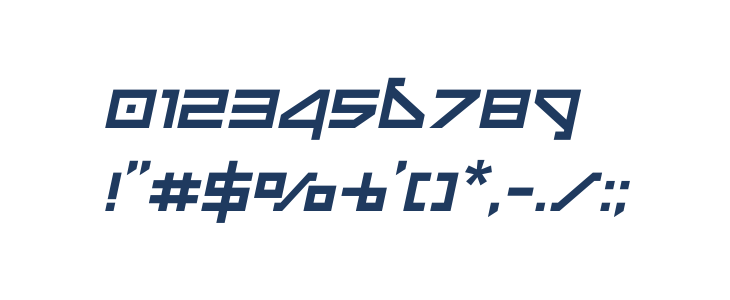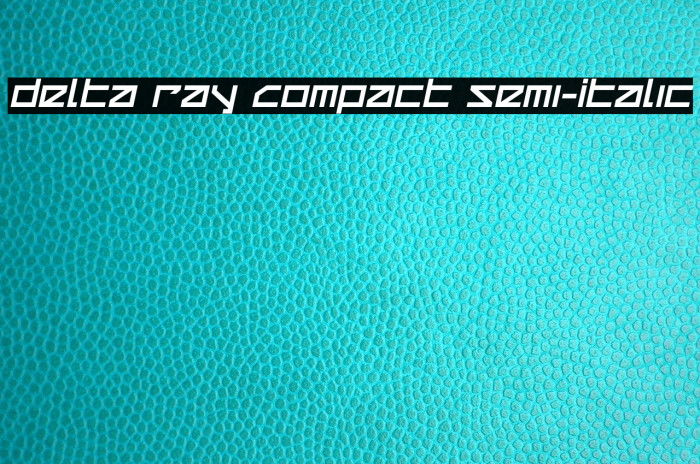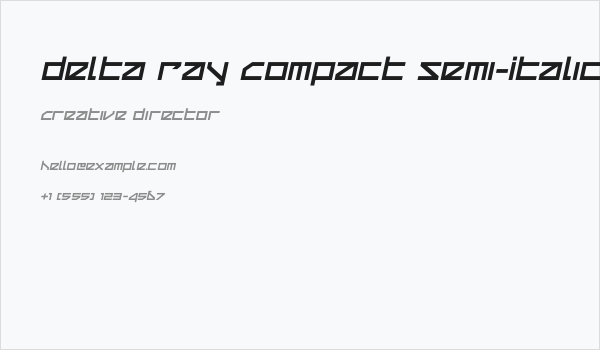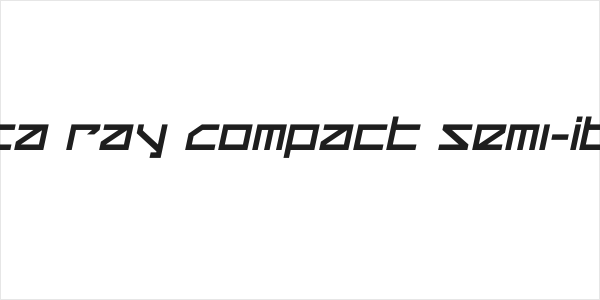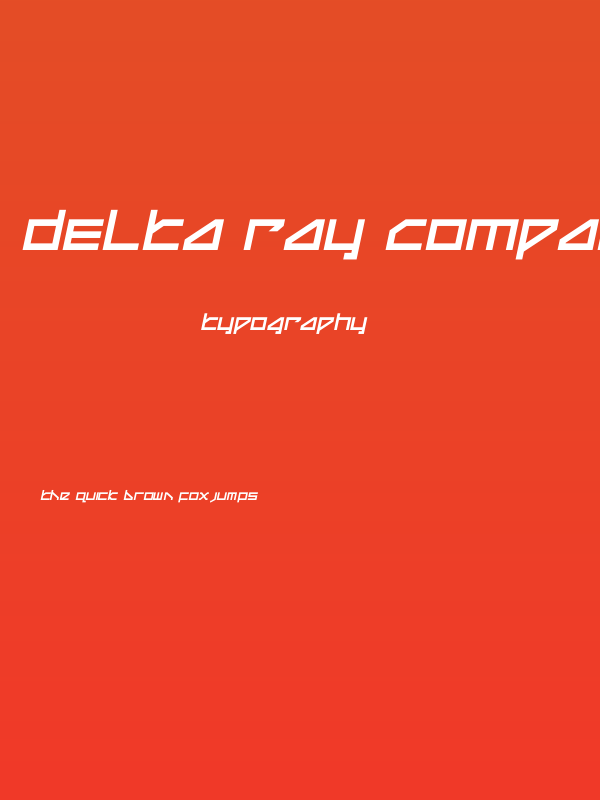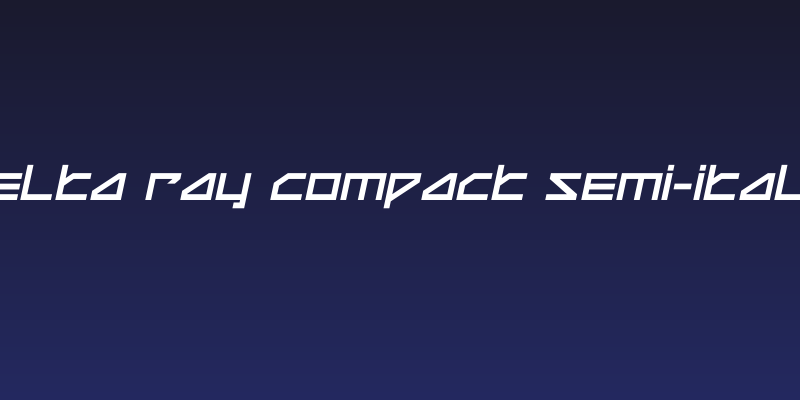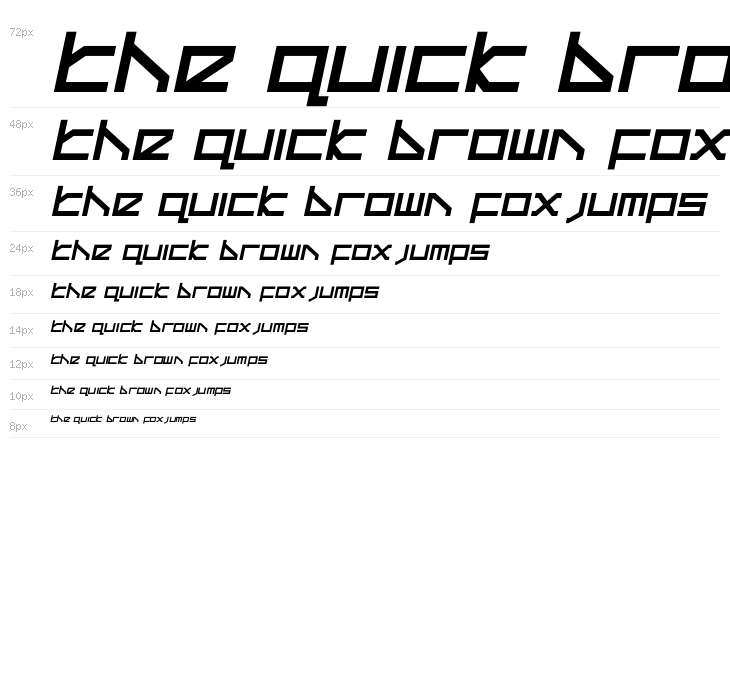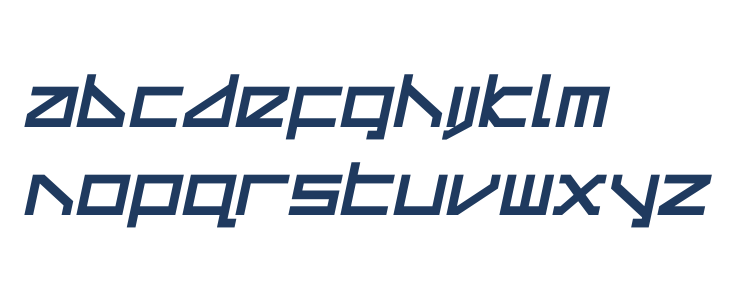
Delta Ray Compact Semi-Italic Font
Delta Ray Compact Semi-Italic Description
This font features a futuristic and angular design, characterized by sharp edges and a semi-italic slant. The letters are compact with a geometric structure, giving a sense of speed and modernity. The uppercase and lowercase letters maintain a consistent style, with the uppercase being slightly more pronounced. Numbers and special characters follow the same angular theme, ensuring uniformity across all glyphs. The font's unique style makes it stand out, suitable for projects that require a modern and dynamic appearance.